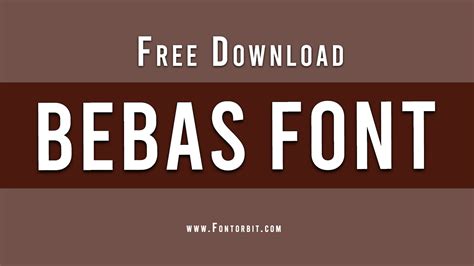
OSC Bebas Sans: Your Ultimate Font Guide
Hey guys! Ever stumbled upon a font and thought, “Wow, that’s clean!”? Well, chances are you might’ve been admiring OSC Bebas Sans , a font that’s become a go-to for designers and content creators worldwide. In this article, we’re diving deep into the world of OSC Bebas Sans. We’ll explore its history, key characteristics, how to best utilize it, and some cool alternatives if you’re looking to mix things up. So, grab a coffee, and let’s get started on this awesome font journey!
Unveiling the Origins of OSC Bebas Sans: A Brief History
Let’s rewind a bit, shall we? OSC Bebas Sans isn’t just another font; it’s a testament to the power of open-source design and community collaboration. Initially, it was a project by Dharma Type, aiming to provide a free, high-quality font suitable for various design applications. The font quickly gained traction because of its versatility and accessibility. It was easily downloadable and free to use, which was a huge plus for designers on a budget or those looking for an alternative to paid fonts. Over time, the font’s popularity soared, making it a staple in the design community. Its widespread adoption is due to its simplicity, clean aesthetic, and the wide range of weights available, from regular to bold, and even a condensed version. It’s designed to be readable, and easy on the eye, which makes it perfect for a variety of uses, from headings to body text. Its free availability made it a hit for both personal and commercial projects.
Since its inception, OSC Bebas Sans has been iterated upon and refined by multiple contributors, showcasing the collaborative spirit of open-source projects. This constant evolution ensures that the font stays fresh, relevant, and compatible with modern design trends. The community feedback loop has also played a crucial role in improving the font’s usability and overall appeal, which resulted in adjustments and additions to ensure it meets the evolving needs of designers. The core design principles of OSC Bebas Sans are readability, clarity, and adaptability, and it is available in a variety of styles, weights and widths to accommodate a vast range of uses. This evolution is vital in a world where design is constantly changing.
So, what’s all the hype about? Well, several factors contribute to OSC Bebas Sans’s popularity. Firstly, it’s free . Who doesn’t love free stuff? Secondly, its clean, modern aesthetic makes it suitable for a wide variety of design projects. From websites to print materials, it’s versatile! Finally, its excellent readability ensures that your message is communicated clearly and effectively. The simple, geometric shapes make it easy to read at different sizes, which is an important factor. The fact that it’s open-source is a big deal, because it promotes flexibility and customization. The font’s broad acceptance across different platforms and media, alongside its consistent performance in a variety of design contexts, has significantly enhanced its reputation.
The font’s success can also be attributed to its clever branding, making it easily recognizable and memorable. When a font is memorable, it’s easier for designers to choose it for their projects, helping to build brand consistency. The font’s consistent performance across various platforms and applications solidifies its standing as a professional-grade font. The design community’s positive feedback and frequent use have played a vital role in its broad acceptance and recognition. The font’s design has also managed to maintain its relevance over time, adapting to changing design trends and user preferences.
Decoding the Characteristics of OSC Bebas Sans: What Makes It Tick
Let’s get into the nitty-gritty, shall we? OSC Bebas Sans is a sans-serif font known for its clean lines, geometric shapes, and excellent readability. Here’s a breakdown of its key characteristics:
• Geometric Design : The font is based on simple geometric shapes, giving it a modern and minimalist feel. This is one of the reasons it’s so visually appealing. It is easy on the eyes and gives a sense of balance.
• High X-Height : This refers to the height of the lowercase ‘x’. OSC Bebas Sans has a relatively high x-height, which increases readability, especially in smaller sizes. The large x-height improves readability, which is especially important for body text.
• Uniform Stroke Weight : The strokes of the letters have a consistent thickness, contributing to the font’s clean look. This uniformity gives the font a polished and professional appearance.
• Versatile Weights : The font family includes various weights, from regular to bold, allowing for flexibility in design. This versatility means you can use it for headings, subheadings, and body text.
• Condensed Version : There’s also a condensed version, which is perfect for fitting more text into a limited space. This is great for titles, labels, and anything else where space is at a premium.
Understanding the Design Philosophy
Understanding the design philosophy behind OSC Bebas Sans can help you make the best use of it. The font’s designers aimed for simplicity and clarity, which is evident in every aspect of its design. The geometric forms give it a feeling of order and stability. The font’s neutral character makes it suited to many design projects. OSC Bebas Sans is about form and function, so it strikes the perfect balance between style and utility. Its clear and concise design makes it a good option when you want to avoid clutter and convey information efficiently. Because of its aesthetic simplicity, it works well in a variety of contexts.
How to Effectively Use OSC Bebas Sans in Your Projects
Alright, let’s talk application! OSC Bebas Sans is incredibly versatile, but here are some best practices for using it effectively:
• Headings and Titles : This font really shines in headings and titles. Its bold weights are great for grabbing attention, and its clean look helps your titles stand out.
Conclusion: Wrapping Up Our OSC Bebas Sans Adventure
Well, guys, that’s a wrap! OSC Bebas Sans is more than just a font; it’s a versatile, free resource that empowers designers worldwide. Its simplicity, clarity, and adaptability make it a staple in any designer’s toolkit. So go out there, experiment, and see how you can use this awesome font to create some amazing designs! Remember to have fun with it, play around with different weights and colors, and see what you can create. Happy designing!